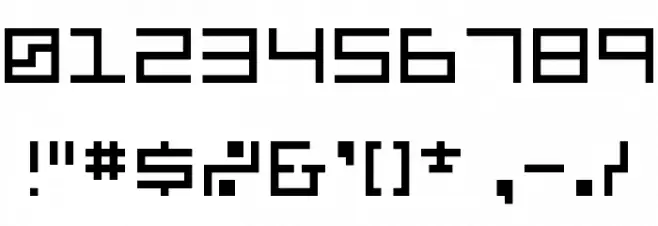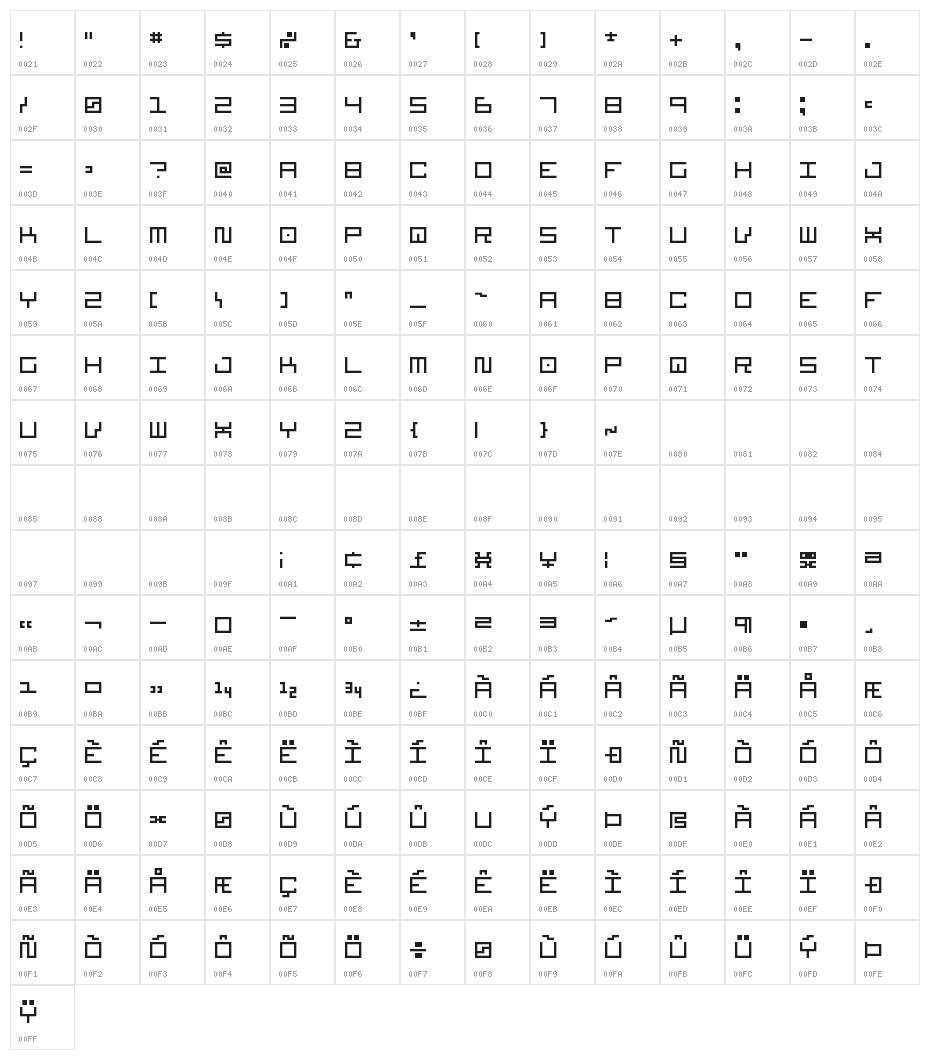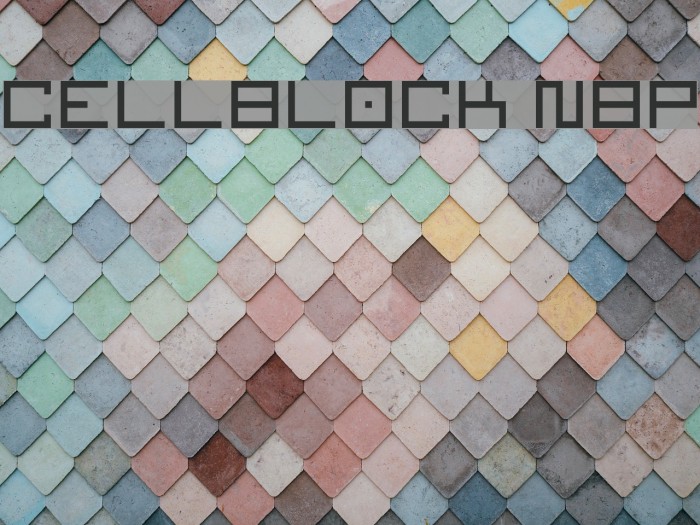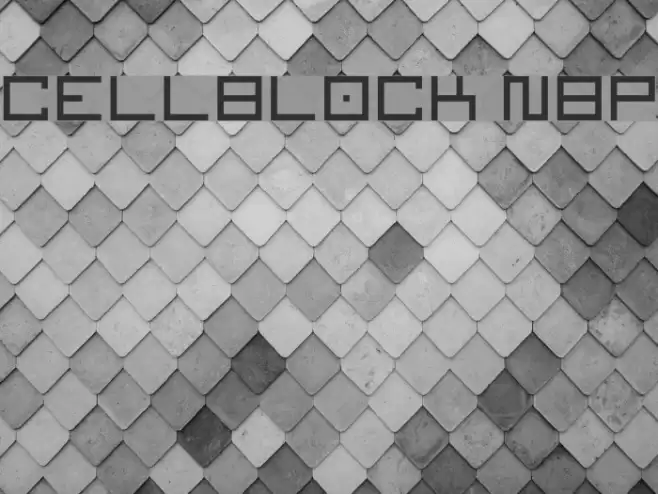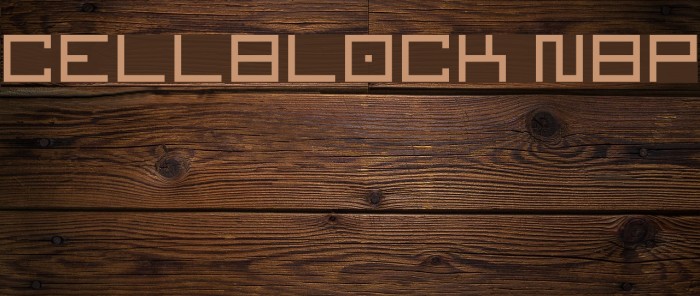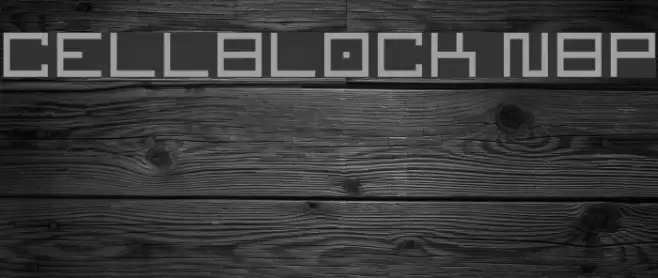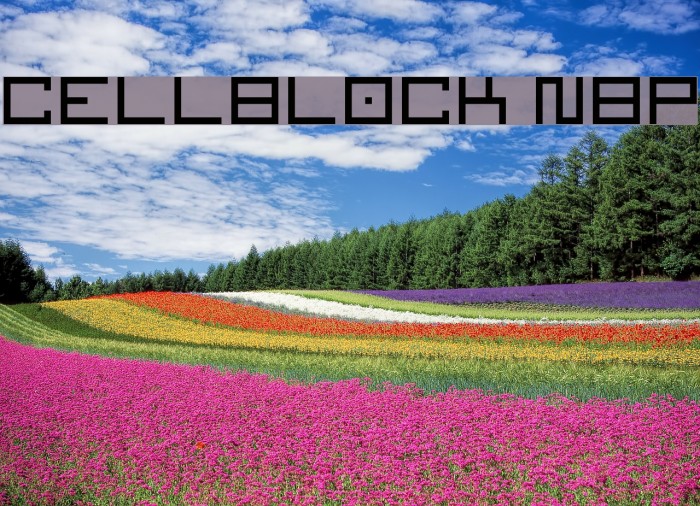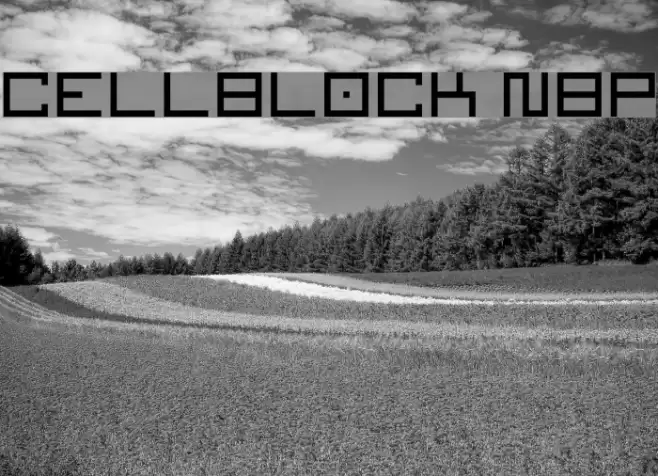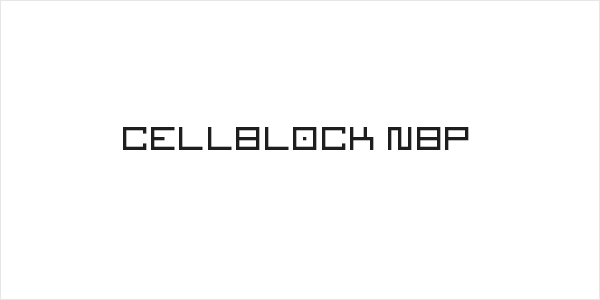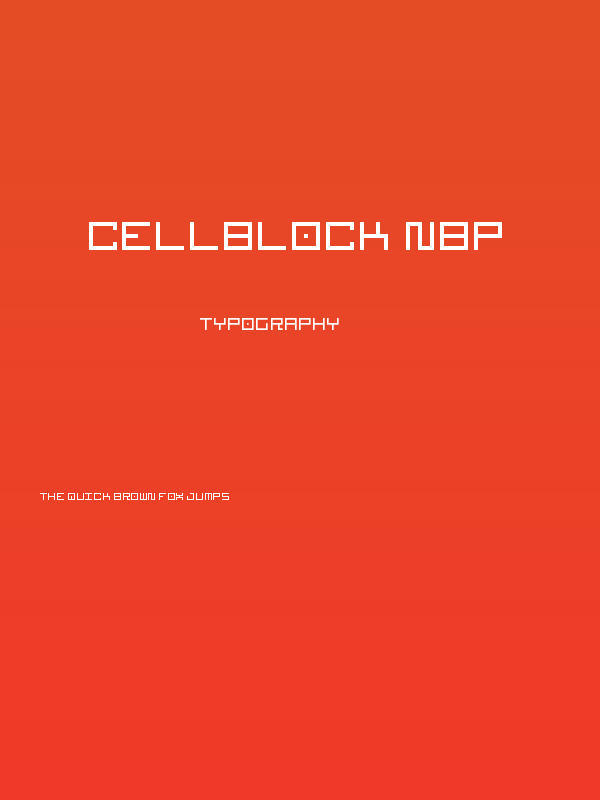
Cellblock NBP Font
Cellblock NBP Description
This font features a geometric, blocky design with a distinctly modern and digital aesthetic. Each character is constructed with uniform line thickness, creating a cohesive and structured appearance. The characters are square-shaped, with sharp angles and straight lines, giving it a futuristic and technical feel. The font maintains a consistent height across all characters, ensuring a uniform look. The spacing between characters is tight, which enhances the compact and efficient style. The numerals and special characters follow the same design principles, integrating seamlessly with the alphabetic characters. This font is ideal for projects that require a bold and impactful visual statement, particularly in digital or technology-related contexts.